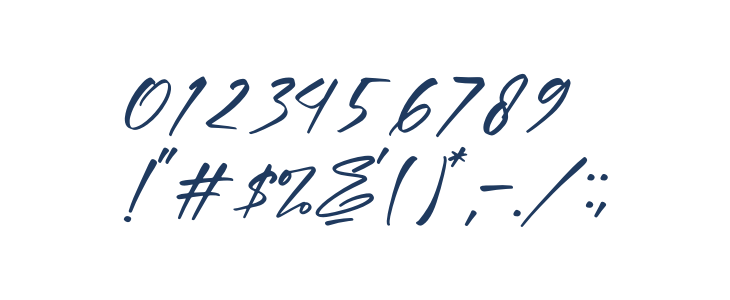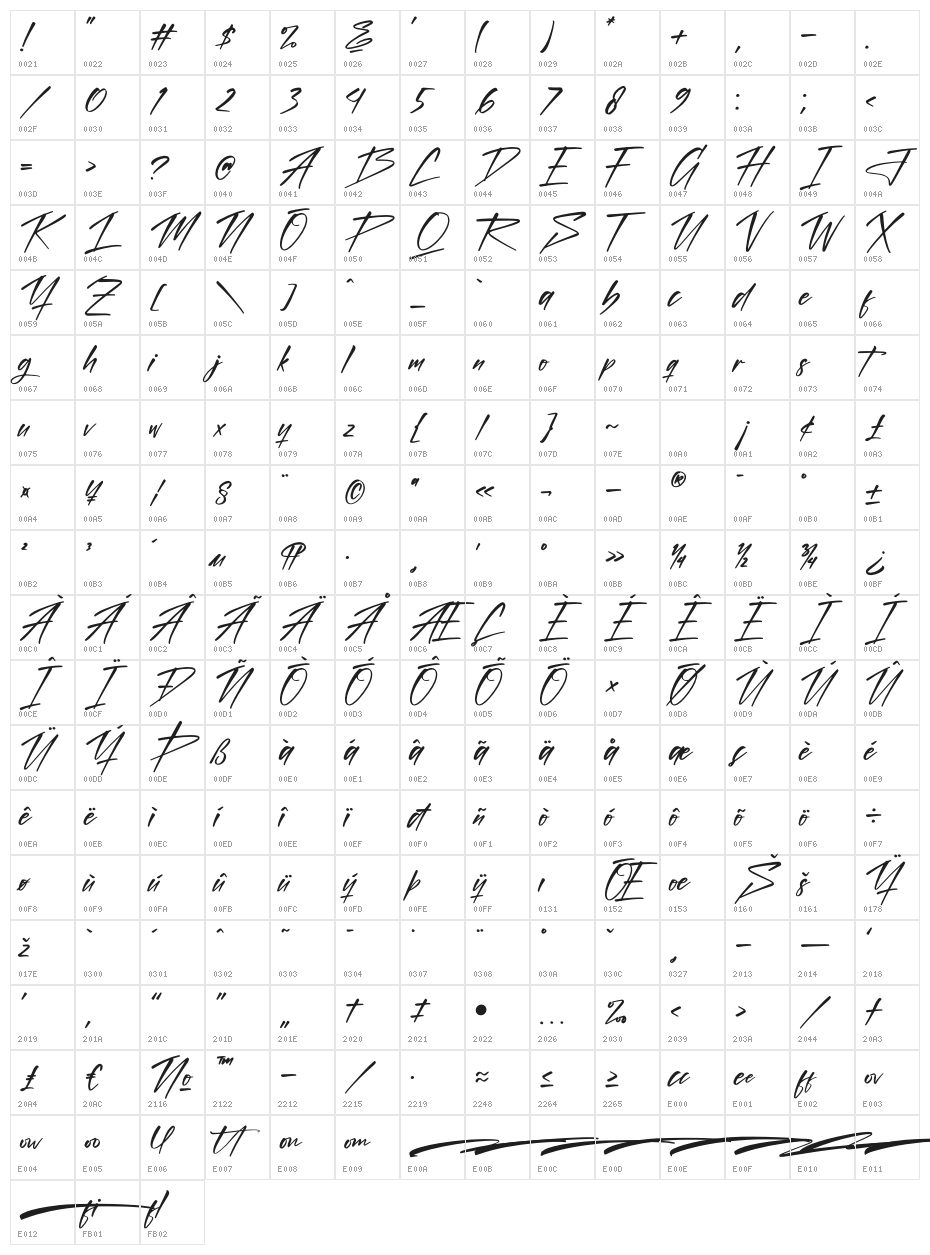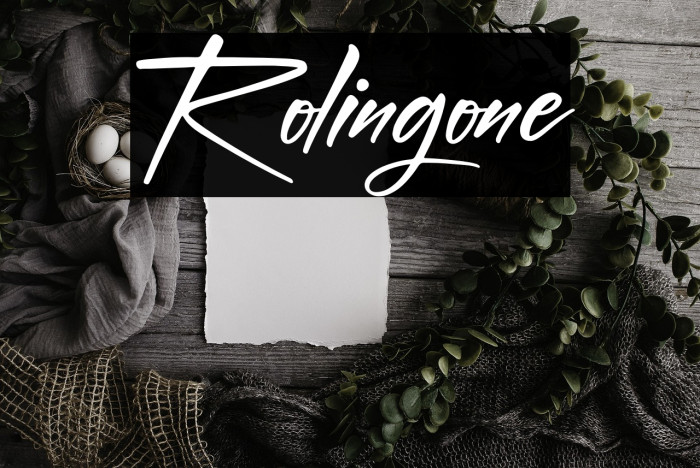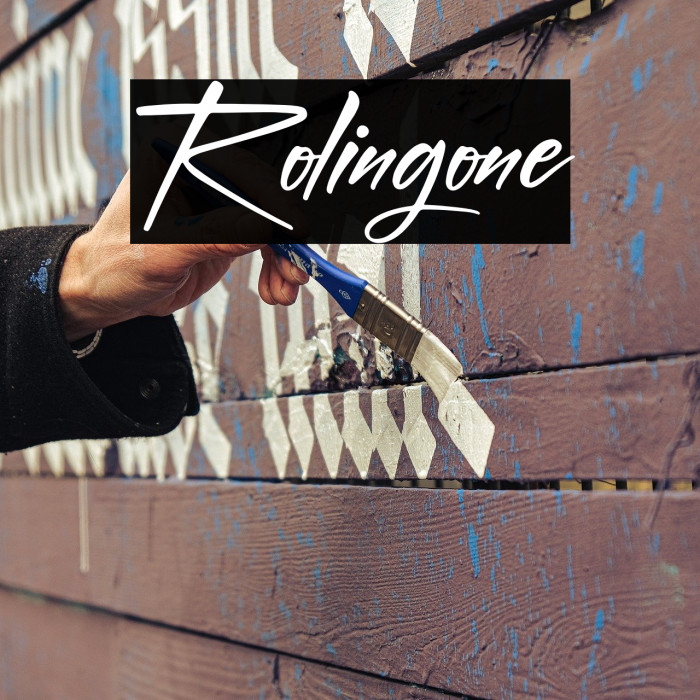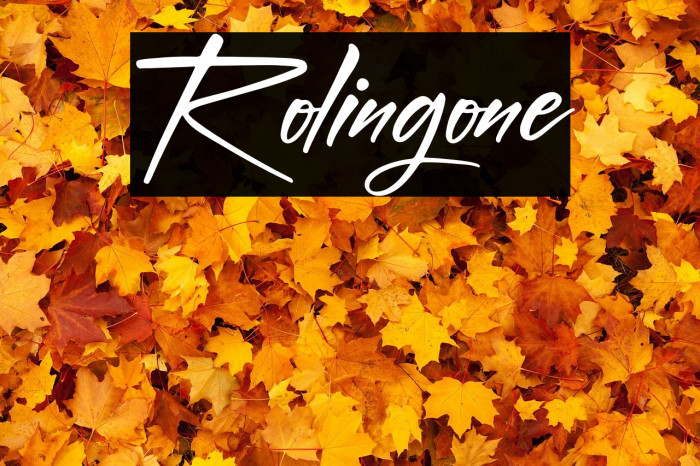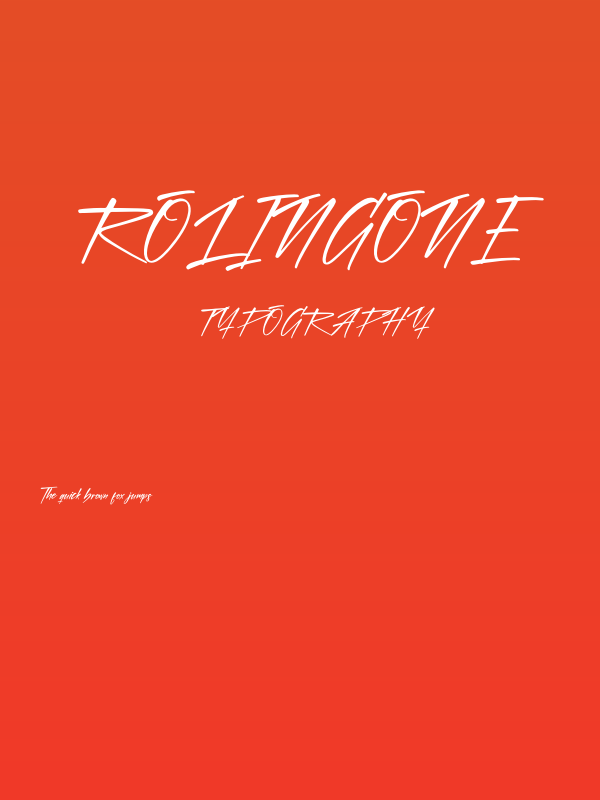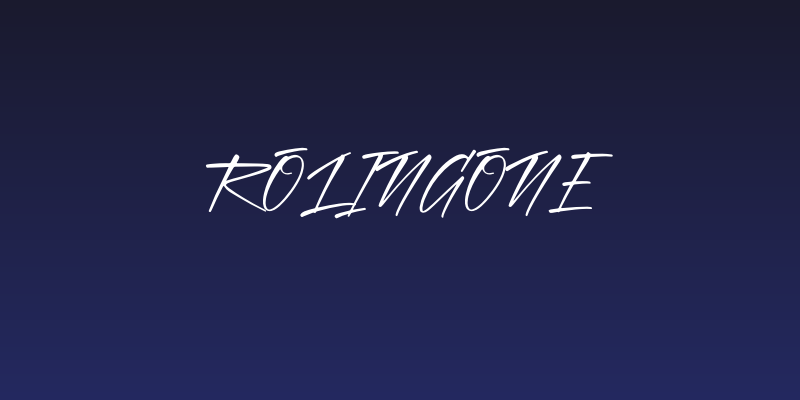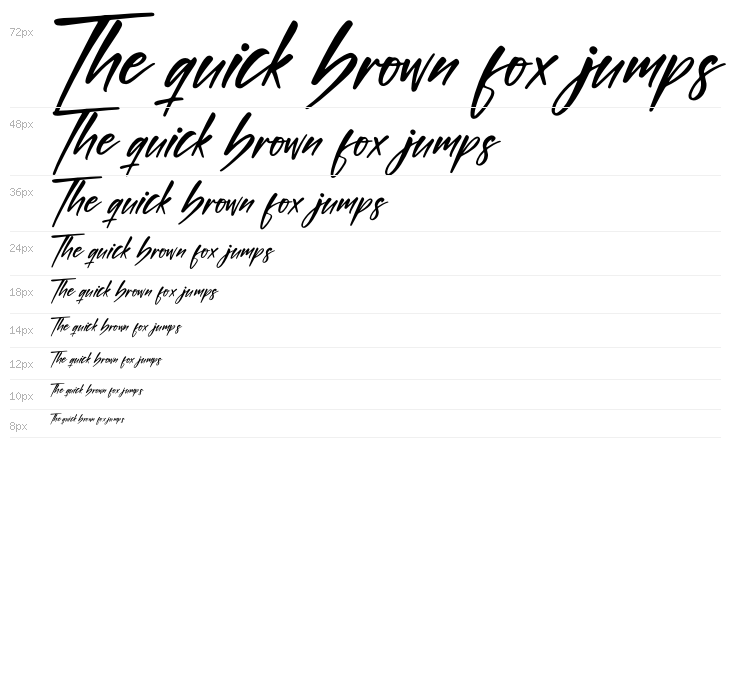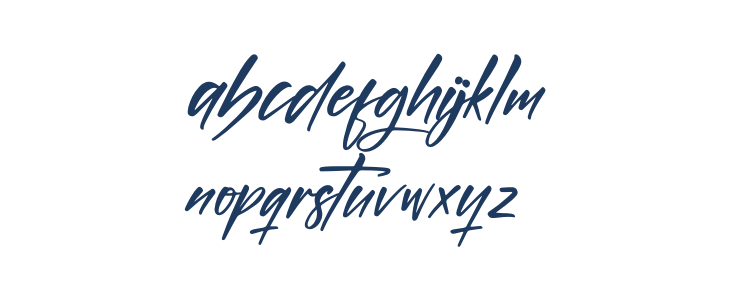
Rolingone Font
Rolingone Description
This font exudes a dynamic and energetic style, characterized by its fluid, handwritten appearance. The uppercase letters are elongated and slightly slanted, giving a sense of motion and speed. The lowercase letters maintain a consistent flow, with some characters featuring unique loops and swashes that add to the font's personality. The numbers are bold and maintain the same handwritten aesthetic, ensuring consistency across all characters. Special characters are creatively designed, fitting seamlessly with the overall style. This font's bold strokes and artistic flair make it stand out, perfect for projects that require a touch of creativity and individuality.
| Use Case | Logos, Headlines, Creative projects |
| Proposed Projects | Ideal for branding, logos, invitations, and creative posters. |